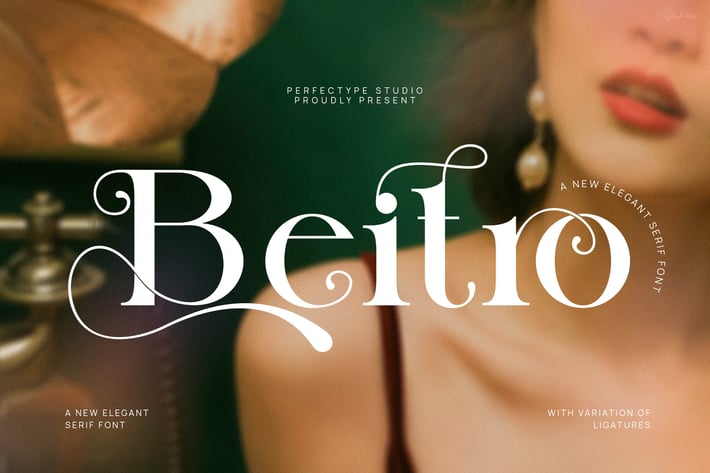
Beitro Unique Elegant Ligature Serif Font Typeface
This is a very elegant and classy font for all branding and logo designs
This type of serif font is made with elegance and luxury so it is very suitable for all your design uses. This type of font is very suitable for your various needs such as branding projects, logos, social media posts, advertisements, labels, product packaging, photography, wedding designs, watermarks, invitation product designs, stationery, and any project, created at a high level legibility.